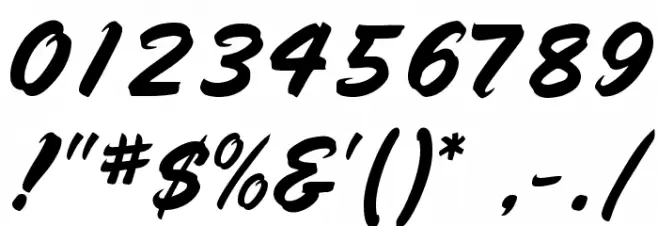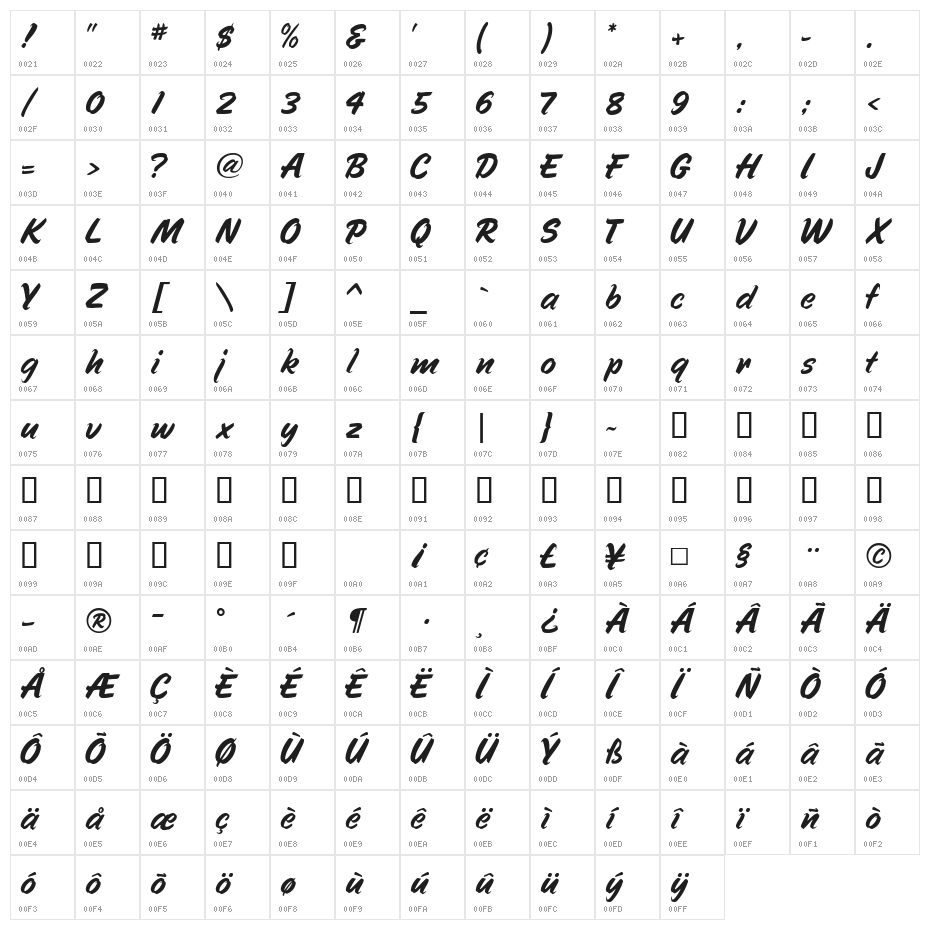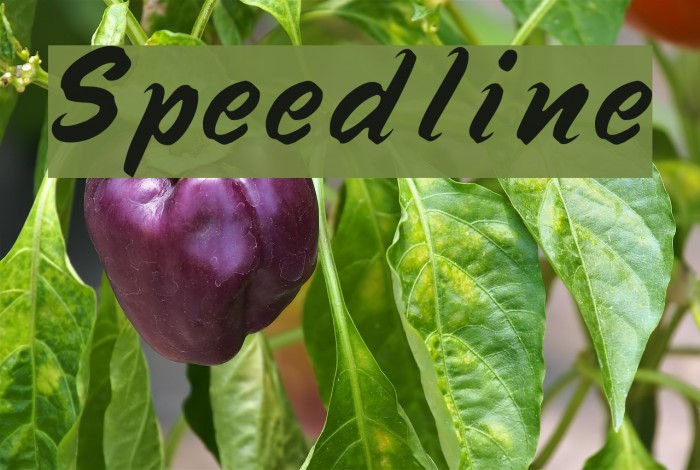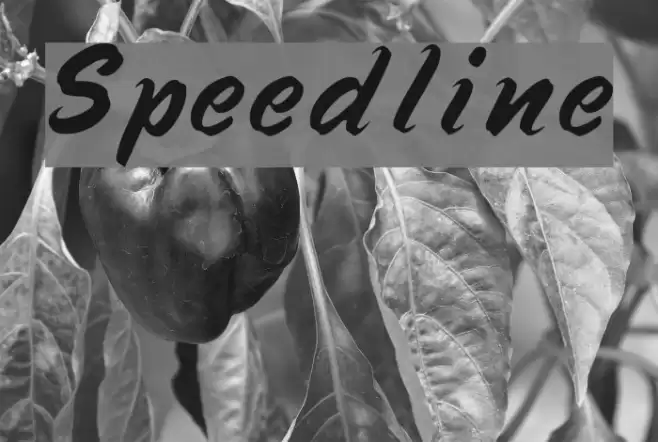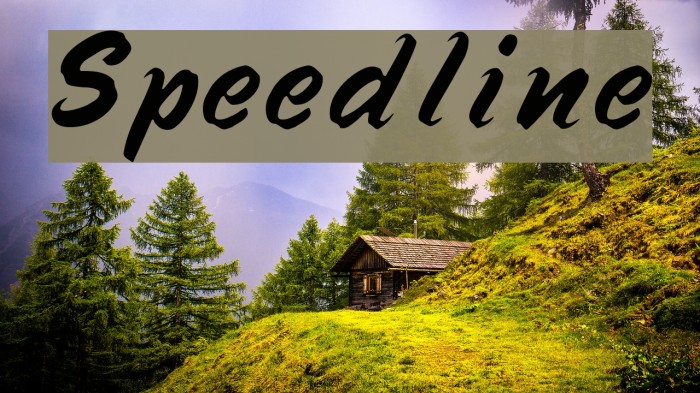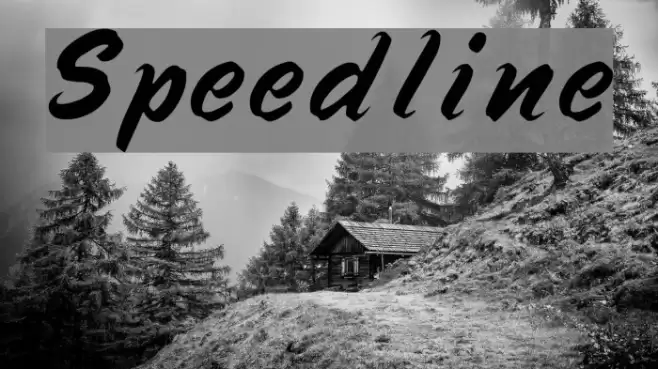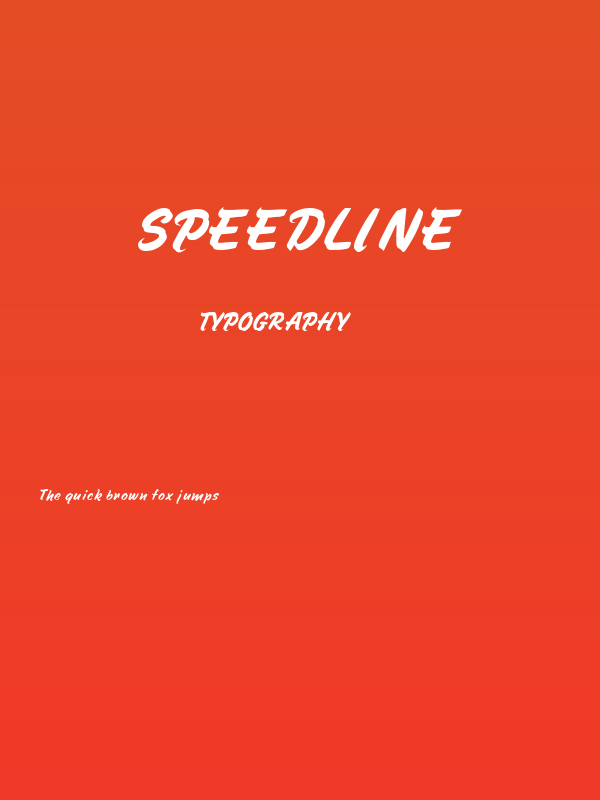
Speedline Font
Speedline Description
This font features a dynamic and energetic script style, characterized by its bold and flowing letterforms. The strokes are thick and consistent, giving it a strong presence. The uppercase letters are slightly slanted, adding to the sense of movement and speed. The lowercase letters maintain a cohesive flow, with smooth connections between characters. The numerals are robust and match the overall boldness of the alphabet. Special characters are designed to complement the script style, maintaining the same energetic flair. This font is ideal for projects that require a sense of motion and vitality.
Proposed ProjectsIdeal for branding, sports-related designs, dynamic posters, and energetic advertising campaigns.